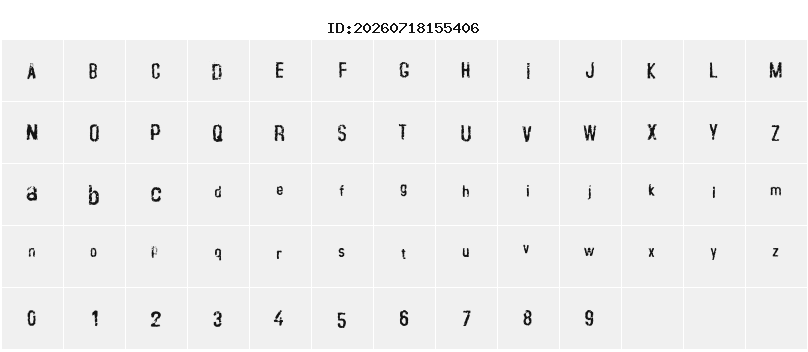
crustype_crust Preview
• Font Name: crustype_crust
• Font Style: crustype_crust
• Full Font Name: crustype_crust
• PostScript Name: crustype_crust
• Character Count: 63
About crustype_crust.ttf
crustype_crust.ttf is a modern, elegant sans-serif font designed for ultimate readability and visual harmony. Perfect for branding, headlines, web design, and print materials.